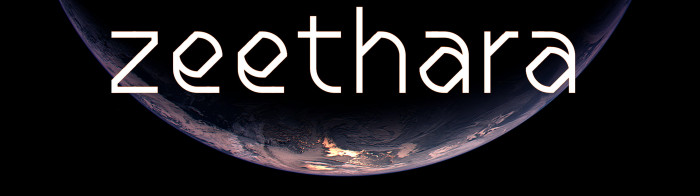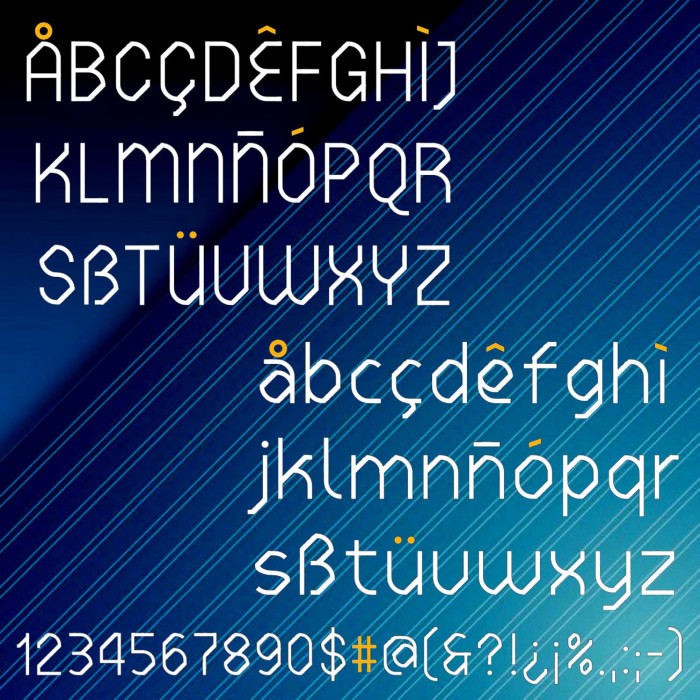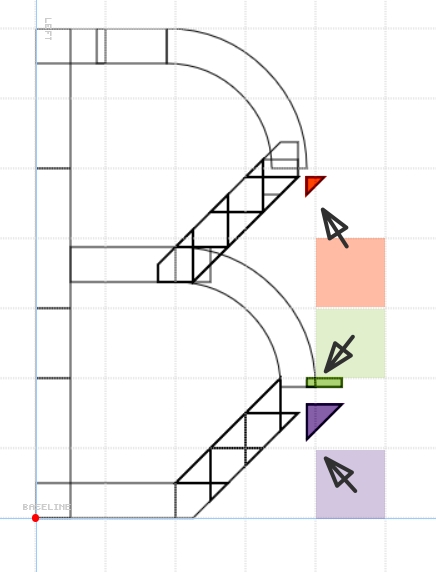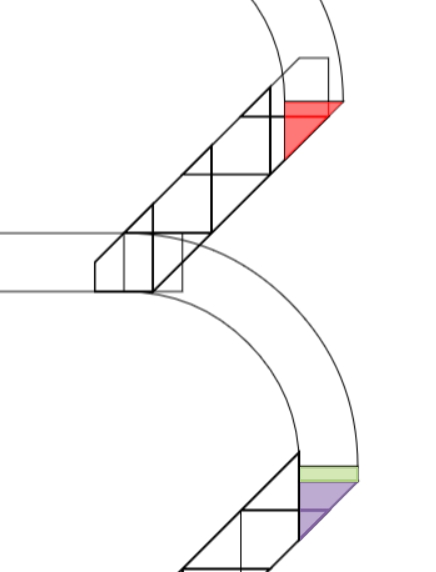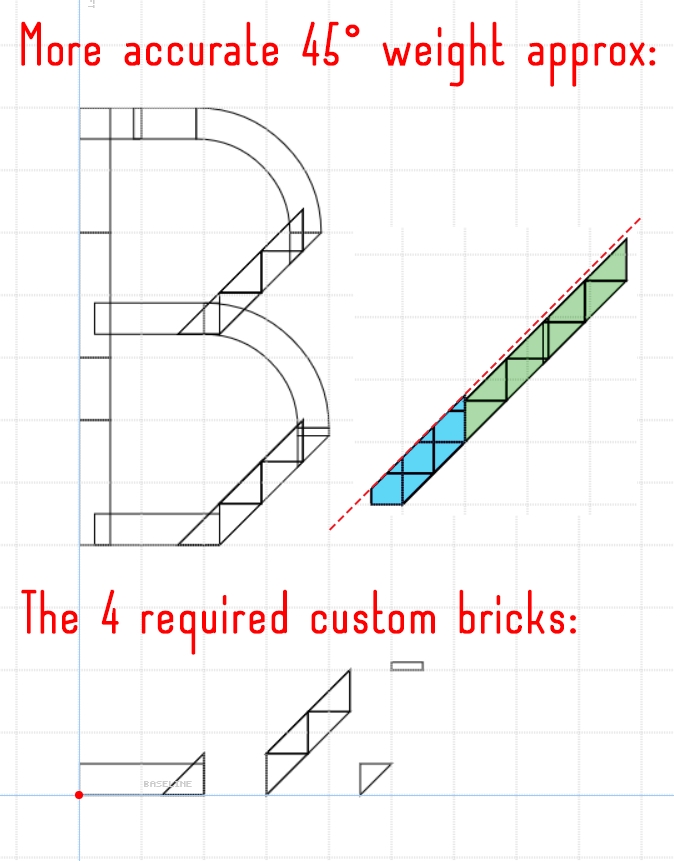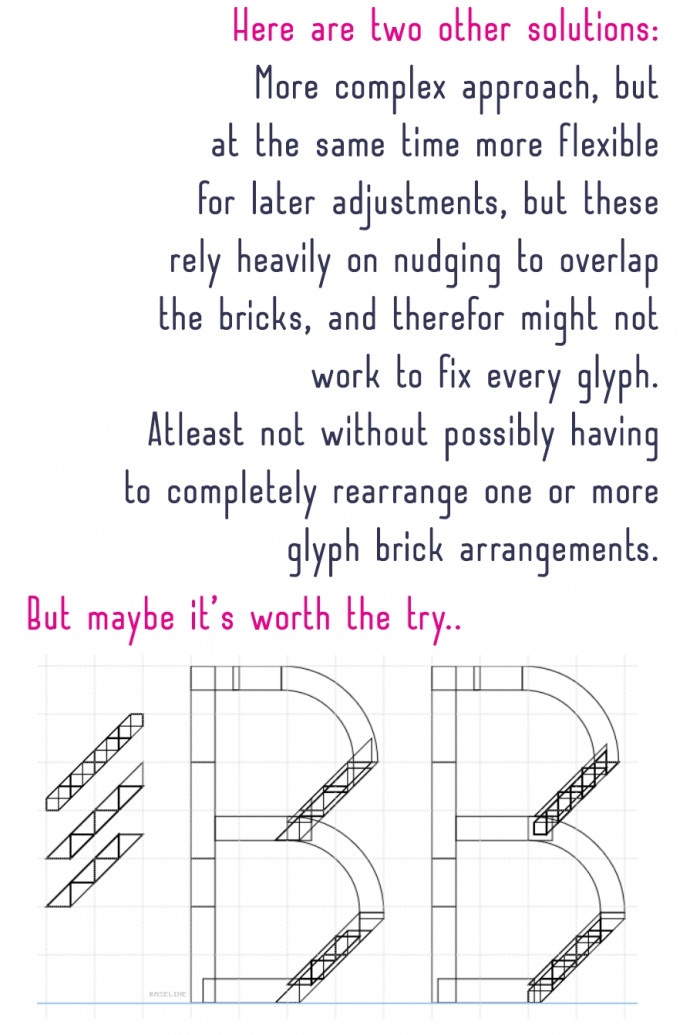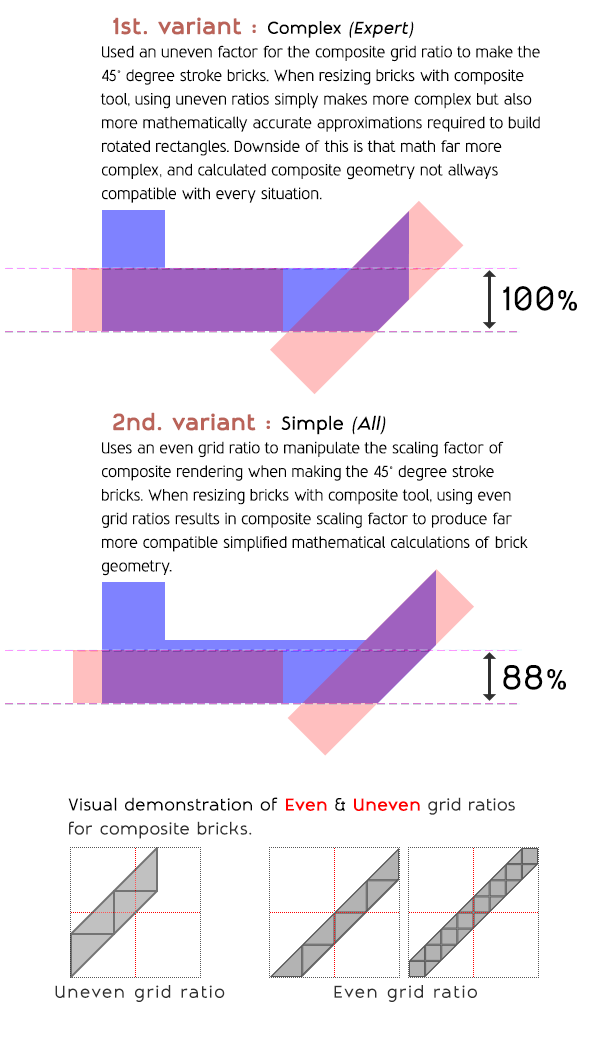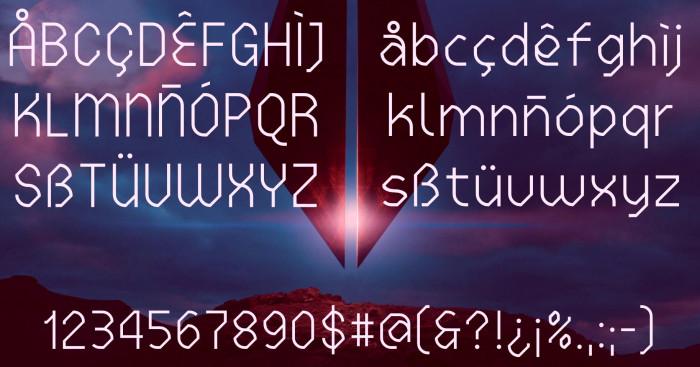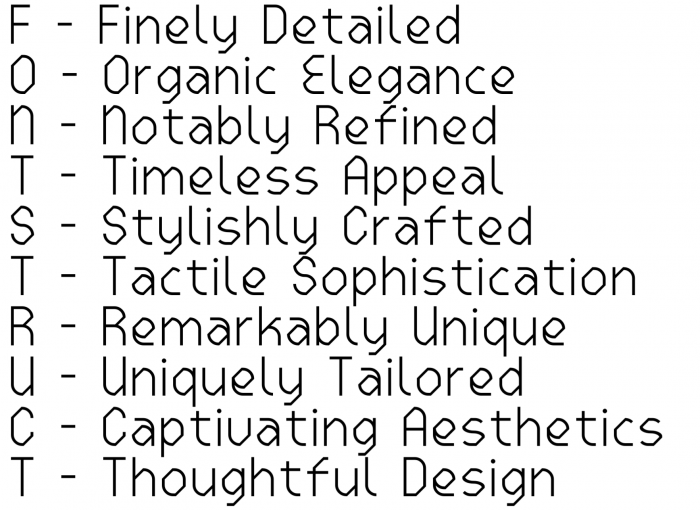
• A sans serif display unpretencious font with a slightly futuristic touch. Readable even at pixel size, although its legibility decreases somewhat when used for long stretches of continuous text. "ff" and "tt" ligatures available.
Apart from that I think it's a great futuristic / tecno font. I love how there is a ever so slight weight accent on the 45 degree diagonals, I don't know if this was by design or accident, but it's a very nice touch.
@Sed4tives: Oops! So sorry. I didn't think those zones were so annoying. I'm going to change them asap. About the 45° diagonals, i just can't make they in other way (suggestions are welcomed)... Thanks a lot for your continuous support and help, pal!
@Sed4tives: Thank you very much for this perfect explanation. Of course, I've fixed all the B glyph and the like, but I was talking to you about the 45° diagonal line brick, not the B problem areas you pointed out... Any thoughts on that?
Sorry mate, I was too quick on the draw so I failed to understand you meant the 45 degree slopes. I made another template for you to fix the stroke weight of those too!
That being said, I do think the slight thicker strokes you originally crafted remains a nice little nuance that kind of evokes sort of that inverted stressed contrast, But in such a subtle way that it doesn't defines it.
So personally speaking I do not want to motivate you into actually correcting them to be honest.
@Sed4: Well, I've been trying your idea, but when I use this new thinner diagonal brick the letters become unbalanced to the right. I'm not sure I'd change it right now, but with it you give me other points of view to consider. Thank you veeery much one more time.
@Sed4:Thanks a lot again. Using your last proposal (a little bit modified), I'm changing the entire set of glyphs.
Oh nice, I just dropped back out of the FS-editor where I was doing basicallt the same actually. I have just completed the Basic Latin set. I was planning on surprising you with a fixed mod... Now I see that you gone in at deep end yourself I can abandon mine!
But yeah from what I get out of the work I did it seems to work perfect for the font.
The second solution for the diagonals you went with is slightly thinner than the first suggestion. Whereas the diagonals in the innitial solution had exactly the correct stroke weight to make the font truly monolinear, the diagonals in this second solution in reality are only 88% of the font's default stroke weight. Still this variant looks fairly good and balanced, but besides that this solution also preserves the glyph contour outlines, since all modifications were done inside enclosed parts of the letters. The counters is where changes got implemented, as a direct result of this they got a bit more opened up than what they originaly were. So now the letters should have slight more negative whitespace.
But after structing the suggestions to help out my fellow brother in arms I simply started to extrapolate the updated segments into all other glyphs to share with you later, but when I found you were doing it yourself I quit the effort.
I haven't deleted it yet, I will not publish the work, and it probably be deleted sooner or later, but for now I kept it so that I can make a type specimen sample image for comparison, if this is okay with you.
I'm really curious how different yours is compared to mine. :)
@Sed4: It's true that this solution I've chosen covers only 88% of the line width. My initial solution was 106% of the line width, but it felt too thick. The current solution looks better visually, as you pointed out.